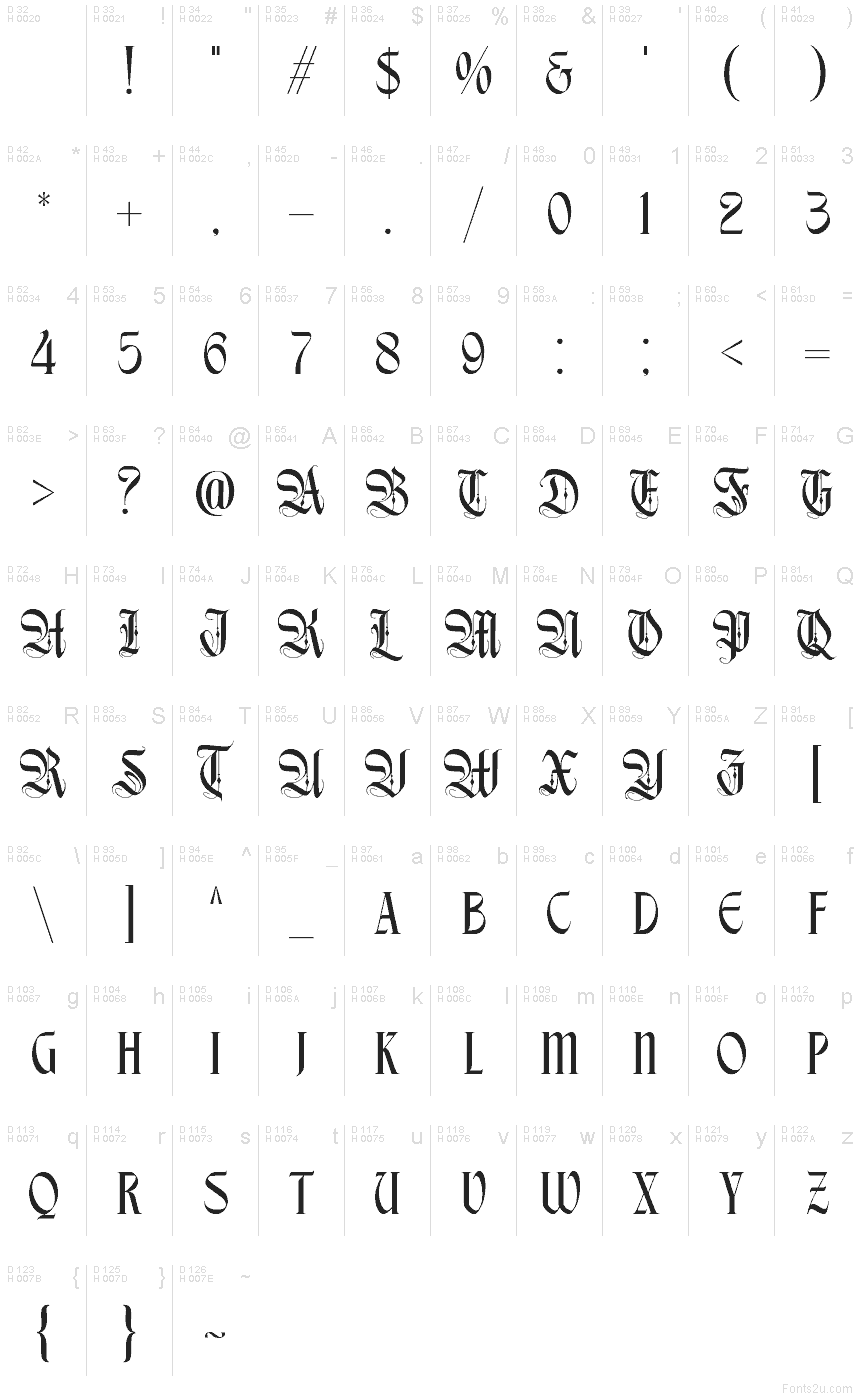
Pamors Regular
Pamors font by Alit Design is a gothic, modern, condensed font with decorative elements and intricate detailing. It displays a medieval-inspired aesthetic while also showing historic charm. Suggestions of elegance can be seen here and so is evoked tradition in all caps letters.